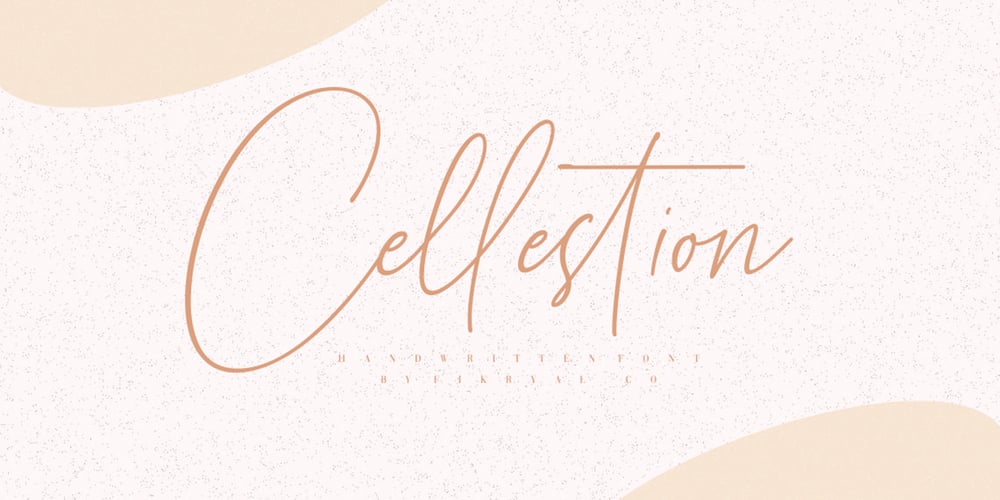
Cellestion Font Family was designed by Muhammad Fikry and published by Fikryal. Cellestion contains 1 styles and family package options. Cellestion is a new, modern and stylish handwritten font. It’s perfect for logos, branding, invitations, tittles, wedding designs, social media posts, advertisements, product packaging, product designs, labels, photography, watermark, special events, magazines, web design, and more.